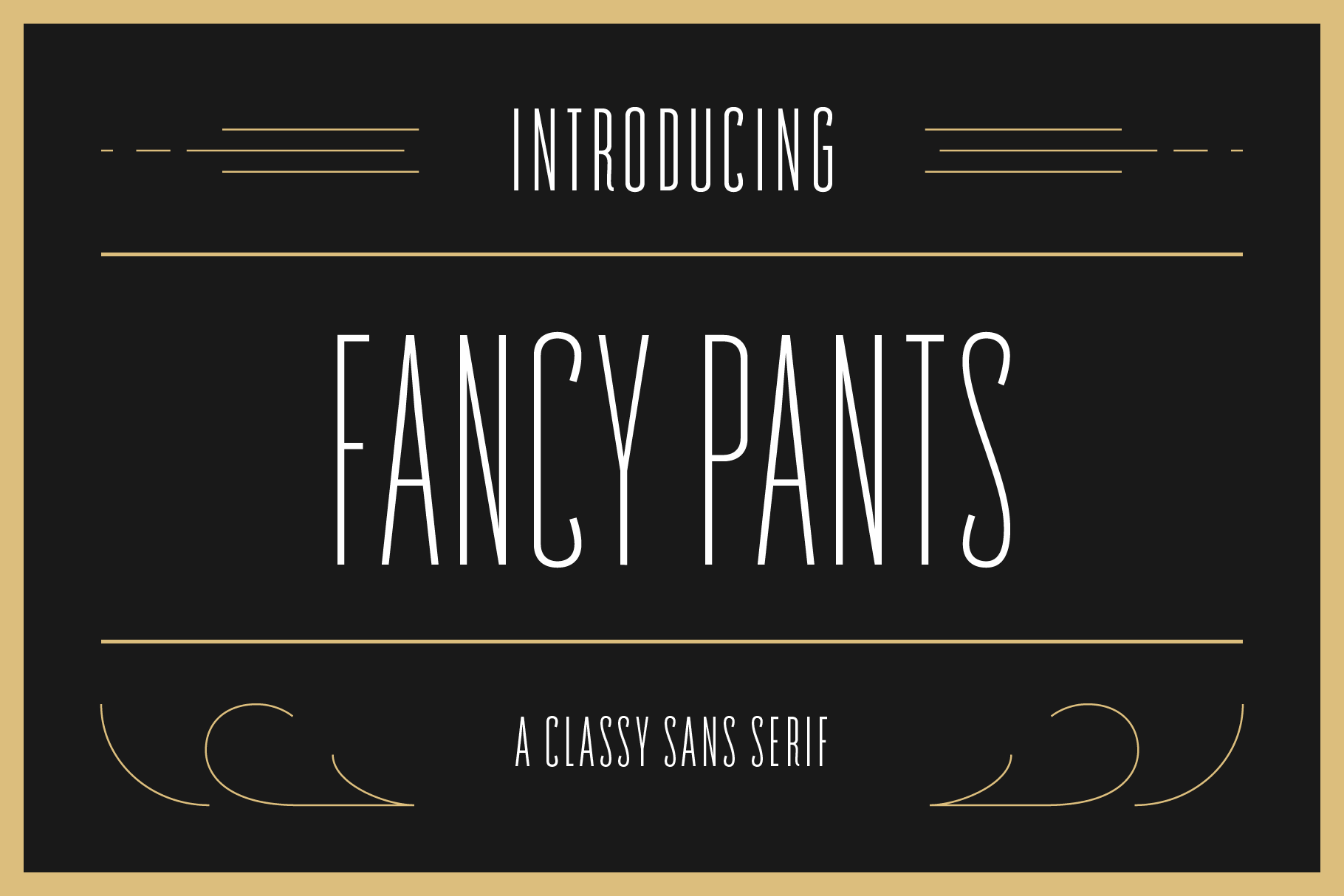
Fancy Pants Typeface
Fancy Pants is a condensed display typeface. Intended for use with headlines and titles, it provides a touch of class & elegance.
October 2017 1.1 Fancy Pants now includes 3 total weights: Light, Regular, and Bold.